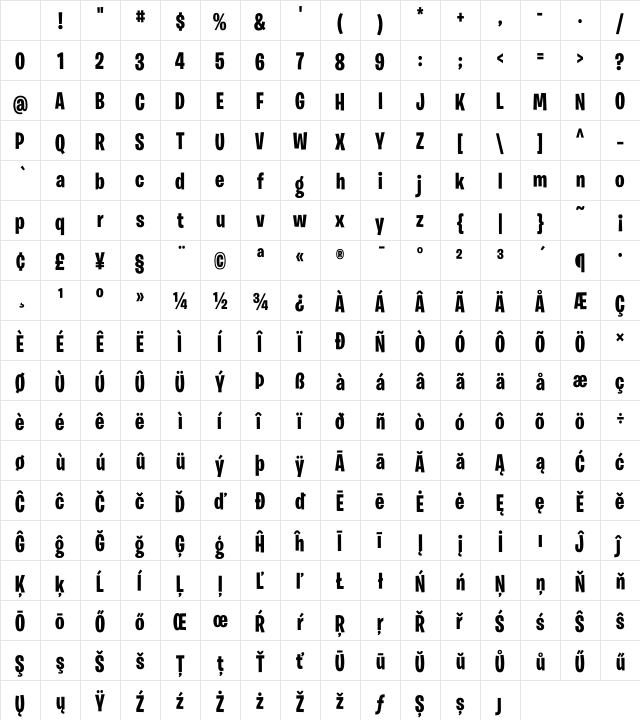
Complete Burbank Big Condensed Bold glyph index. Displaying only characters natively supported by Burbank Big Condensed Bold font.
Burbank Big Condensed is a composed and adaptable typeface that performs quietly and consistently across a wide range of design contexts. Its bold stroke weight gives it real presence on the page. Its narrow stance lets it pack a punch even in space-constrained designs.